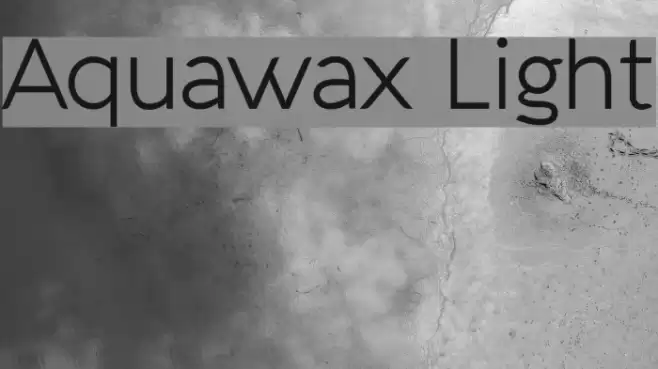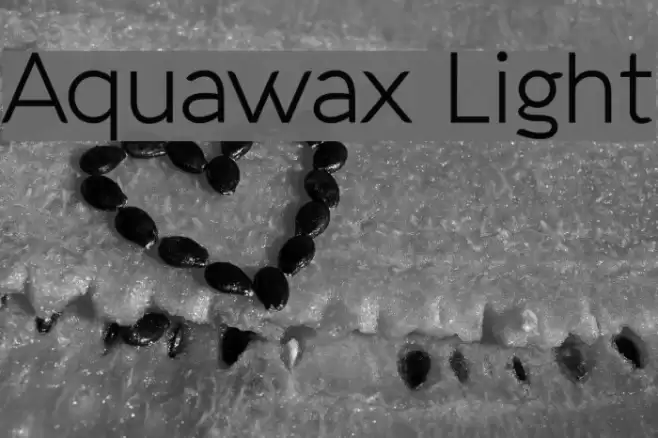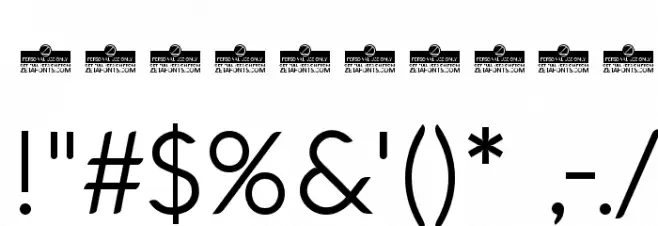
Aquawax Light Font
Aquawax Light Description
This font exhibits a clean and modern aesthetic with a geometric sans-serif style. The characters are well-proportioned, featuring a uniform stroke width that contributes to its sleek and minimalistic appearance. The uppercase letters are bold and assertive, while the lowercase letters maintain a friendly and approachable look. The numerals are clear and easy to read, making them suitable for various applications. Special characters are designed with the same attention to detail, ensuring consistency across the typeface. Overall, this font is versatile, offering a contemporary feel that can enhance both digital and print media.
A modern, geometric sans-serif font with a clean and minimalistic design from Uncategorized fonts.